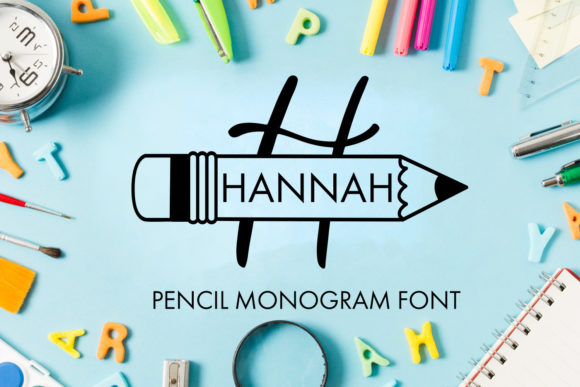
Introducing the Pencil Monogram Decorative Font, the perfect addition to your font collection for those who are looking for a font to use in their monogram logos. This unique and eye-catching font was created by freelingdesignhouse with the intention of bringing a touch of creativity to your designs.
The Pencil Monogram Font is not your typical font, as it is created with a decorative flair that is perfect for those who want to add a personal touch to their projects. Its playful design mimics the look of a pencil stroke, which gives your designs a unique and personalized feel.
This font is not just for fun projects, but it also has a practical side. The Pencil Monogram Font is perfect for all your school-related projects. Use it for "Back to school" or "End of school" projects to create something special for your teachers or classmates. The Pencil Monogram Font is also great for creating personalized stationery, invitations, and greeting cards.
The Pencil Monogram Font is not just for school-related projects; it is also a great choice for businesses looking to add a touch of creativity to their branding. This font is perfect for monogram logos, adding a unique touch to your business's visual identity.